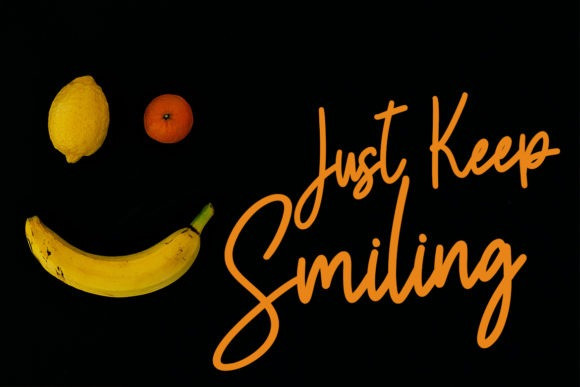
Saglity Script Font
Saglity Script Font is a flowing, timeless and relaxed handwritten font. Fall in love with its incredibly versatile style and use it to create gorgeous wedding invitations, beautiful stationary art, eye-catching social media posts, and much more!